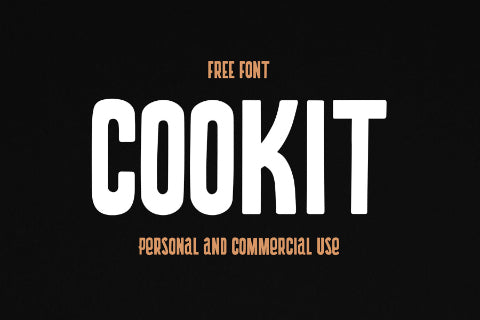
Take a look at this mouth-watering free cookit display typeface. Go give some love to Free Design Resources for creating this top-notch font. You can create a professional designs with this fancy font.